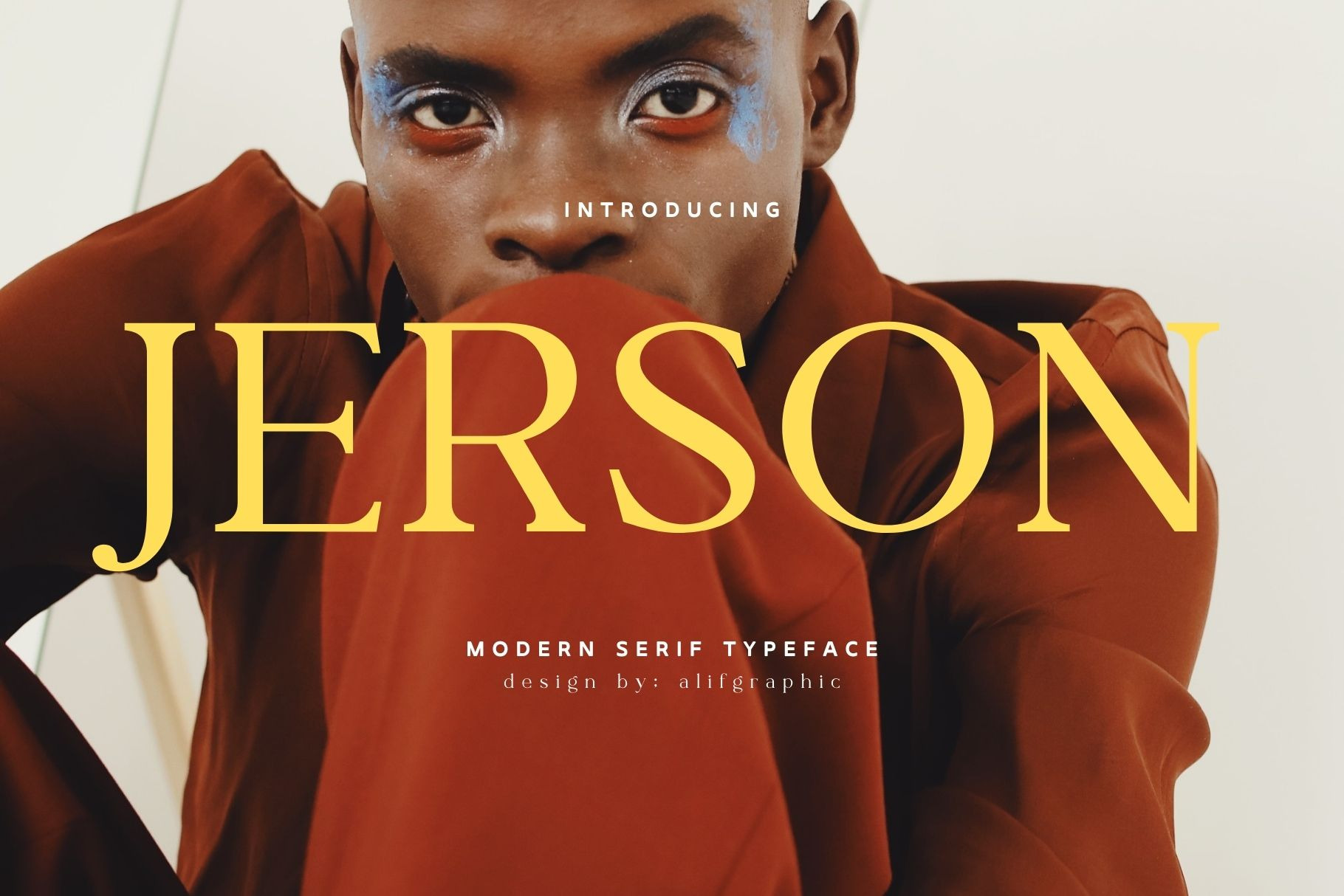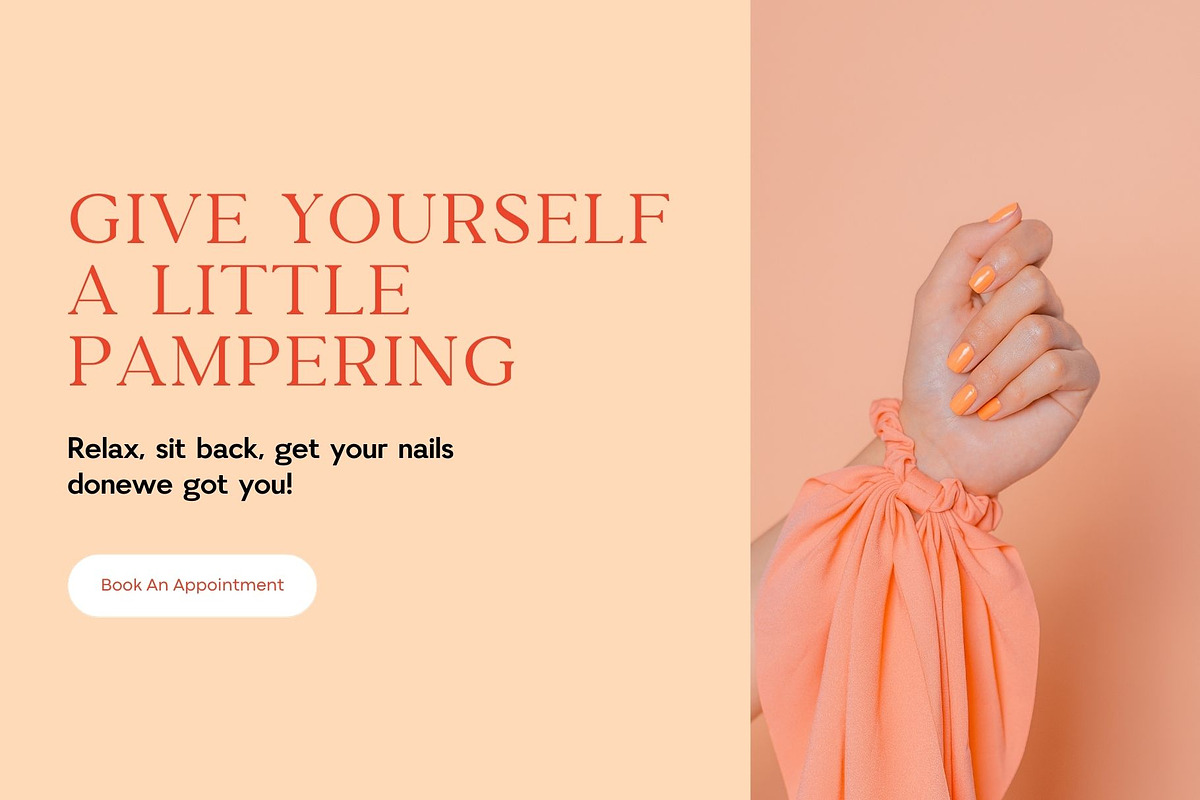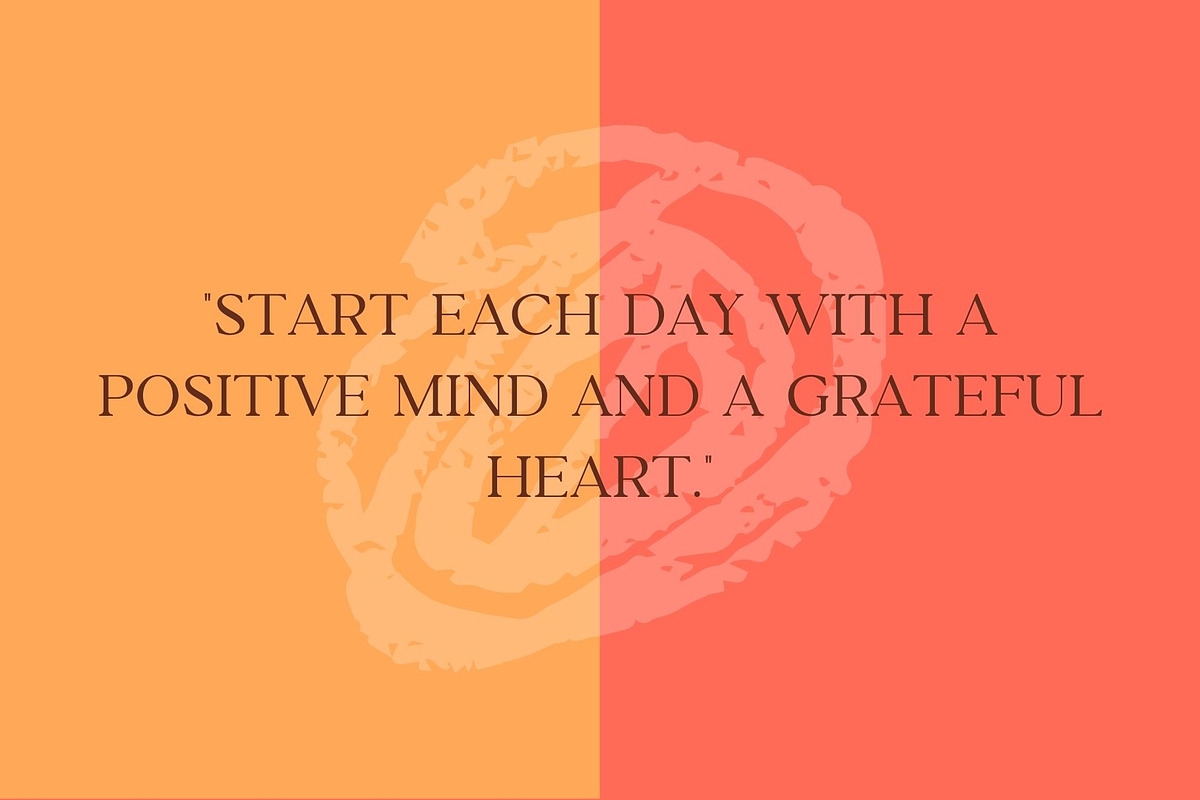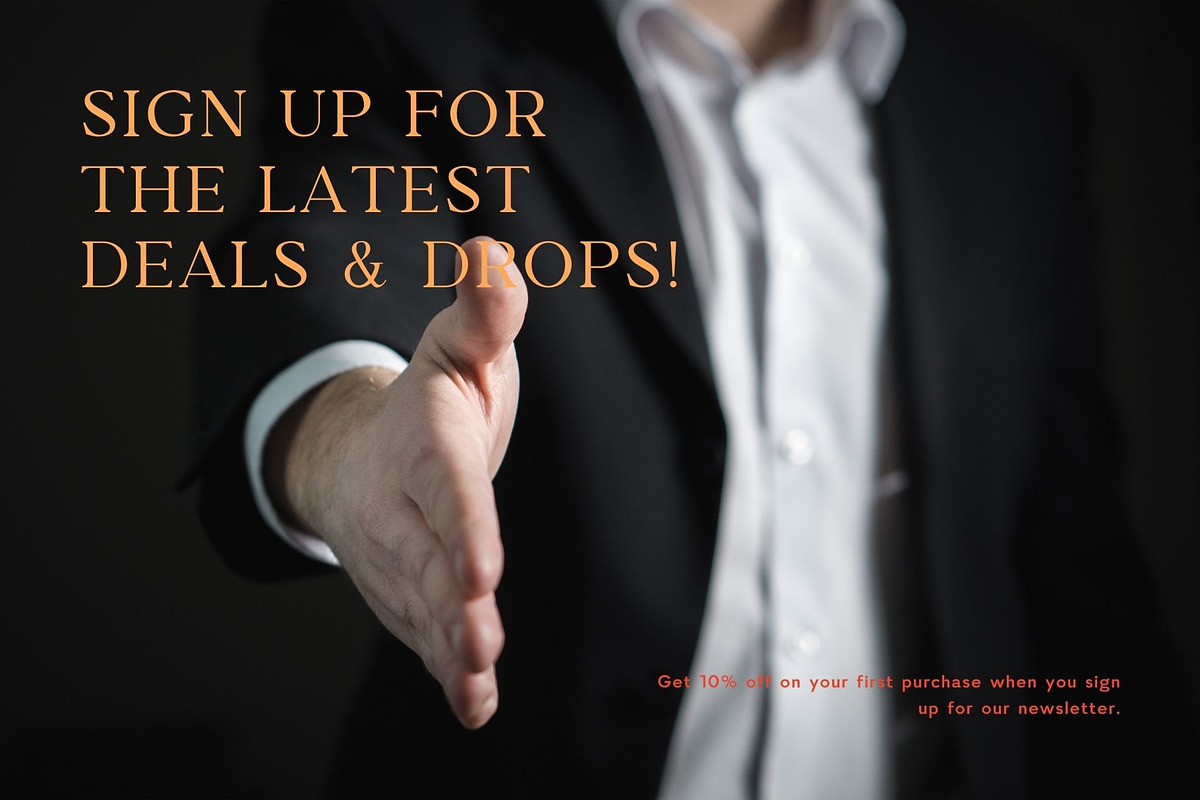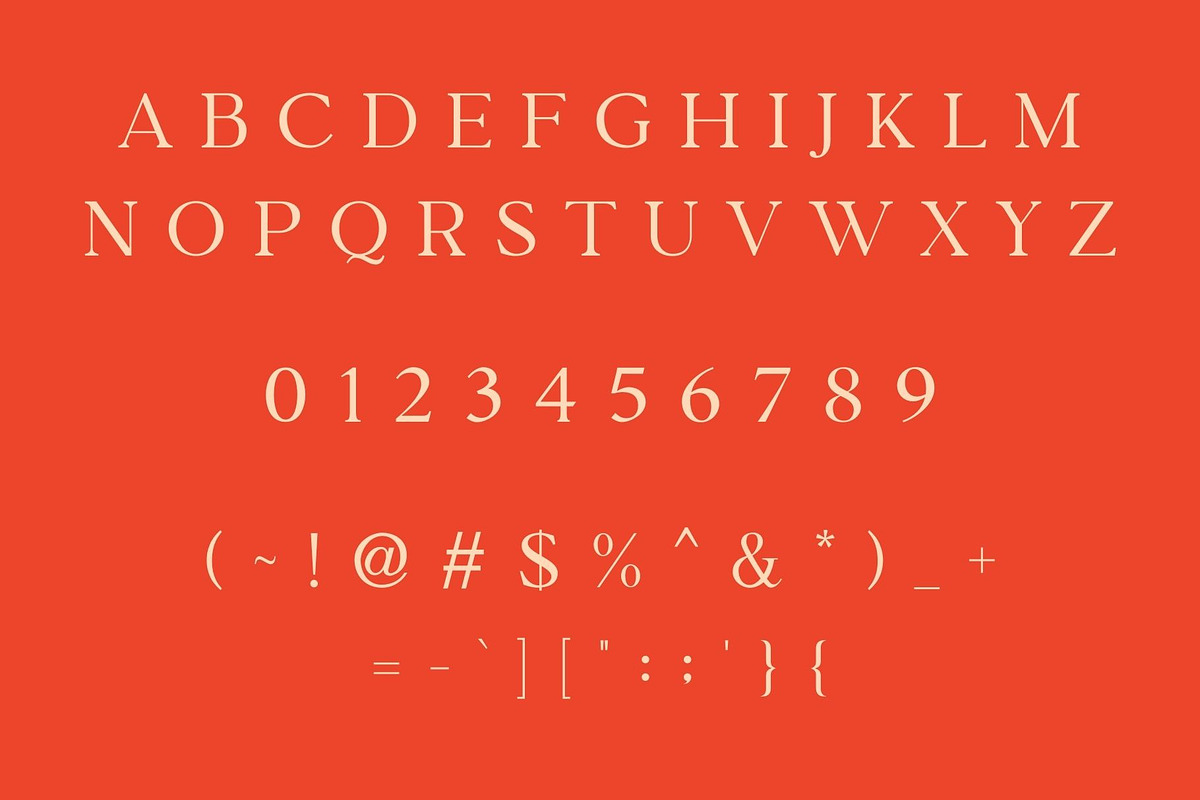
Jerson - Modern Serif Typeface
Introducing 'Jerson' Font:
Presenting "Jerson" – a contemporary serif font seamlessly marrying sophistication with modern style. Boasting clean lines and a timeless allure, Jerson is an ideal choice for projects that seek a harmonious balance between classic and contemporary aesthetics. Whether you're designing elegant invitations, professional documents, or stylish branding, Jerson's versatile and refined design positions it as the go-to font for adding a touch of class to your typography. Elevate your visual communication with the sleek and timeless charm embodied by the Jerson font.
Ideal for:
- Social Media Designs
- Beauty and Fashion
- Elegant Creations
- Versatile Applications
- Ready for Creative Expression
- Immaculately Crafted Letters